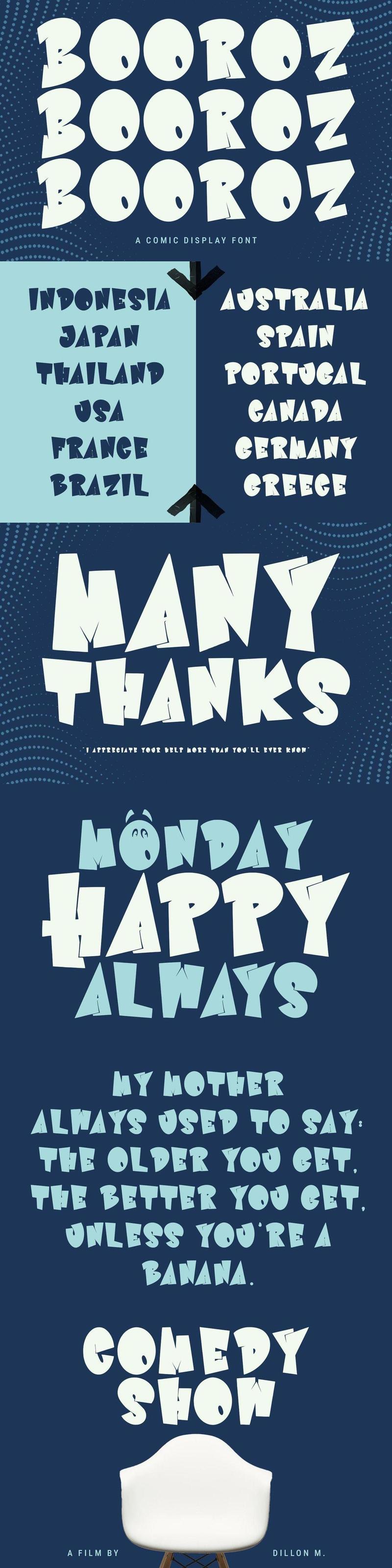
Booroz Comic Display Font FDRLG93
Booroz is a modern comic display font. With bold stroke, fun character with a bit of alternates. To give you an extra creative work. Booroz font support multilingual more than 100+ language. This font is good for logo design, Social media, Movie Titles, Books Titles, a short text even a long text letter and good for your secondary text font with sans or serif. Make a stunning work with Booroz font.